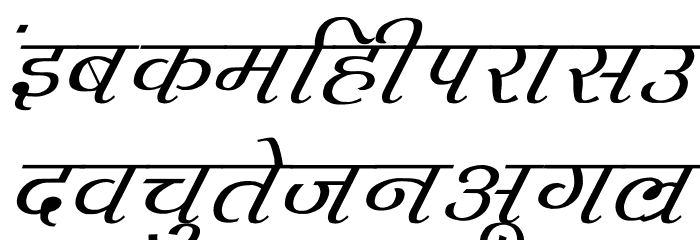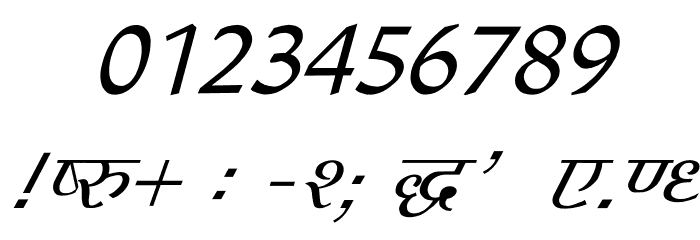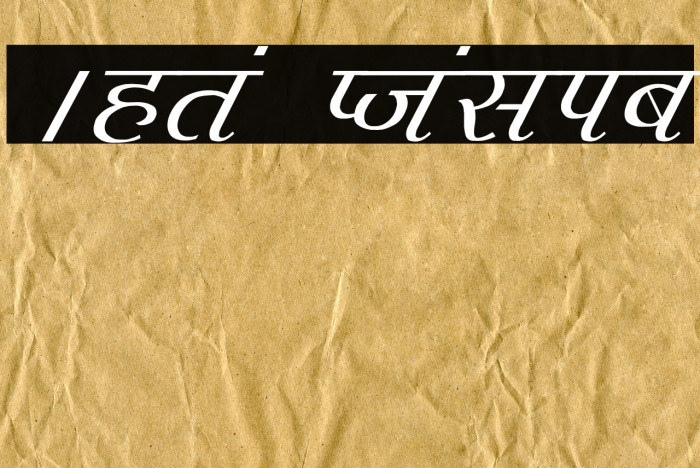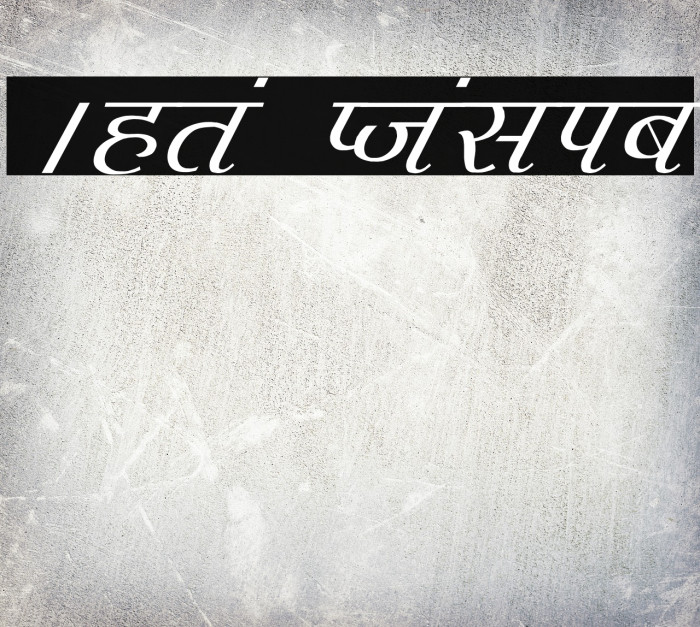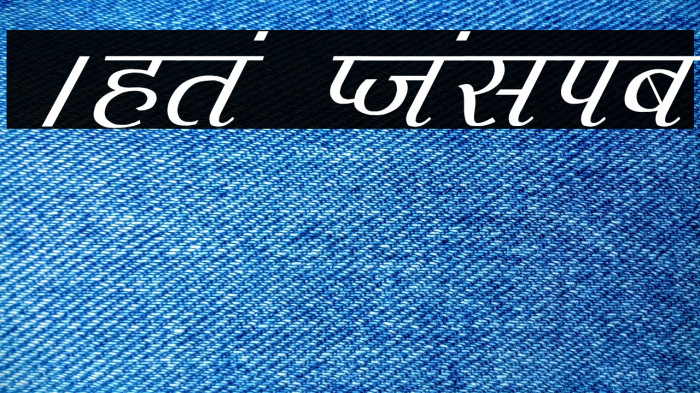
Agra Italic Font
This font features a classic and elegant Devanagari script with a distinct italic style. The characters are gracefully slanted, giving a sense of motion and fluidity. The strokes are smooth and well-defined, with a moderate contrast between thick and thin lines. The font maintains a traditional aesthetic while incorporating a modern twist through its italicization. It is well-suited for conveying a sense of sophistication and cultural richness.
An elegant italic Devanagari script with smooth, flowing strokes.
- Proposed Projects: Ideal for cultural publications, artistic projects, invitations, and branding that requires a touch of elegance and tradition.
- Overall Style: Classic
- Use Case: Headlines, Artistic projects, Cultural publications